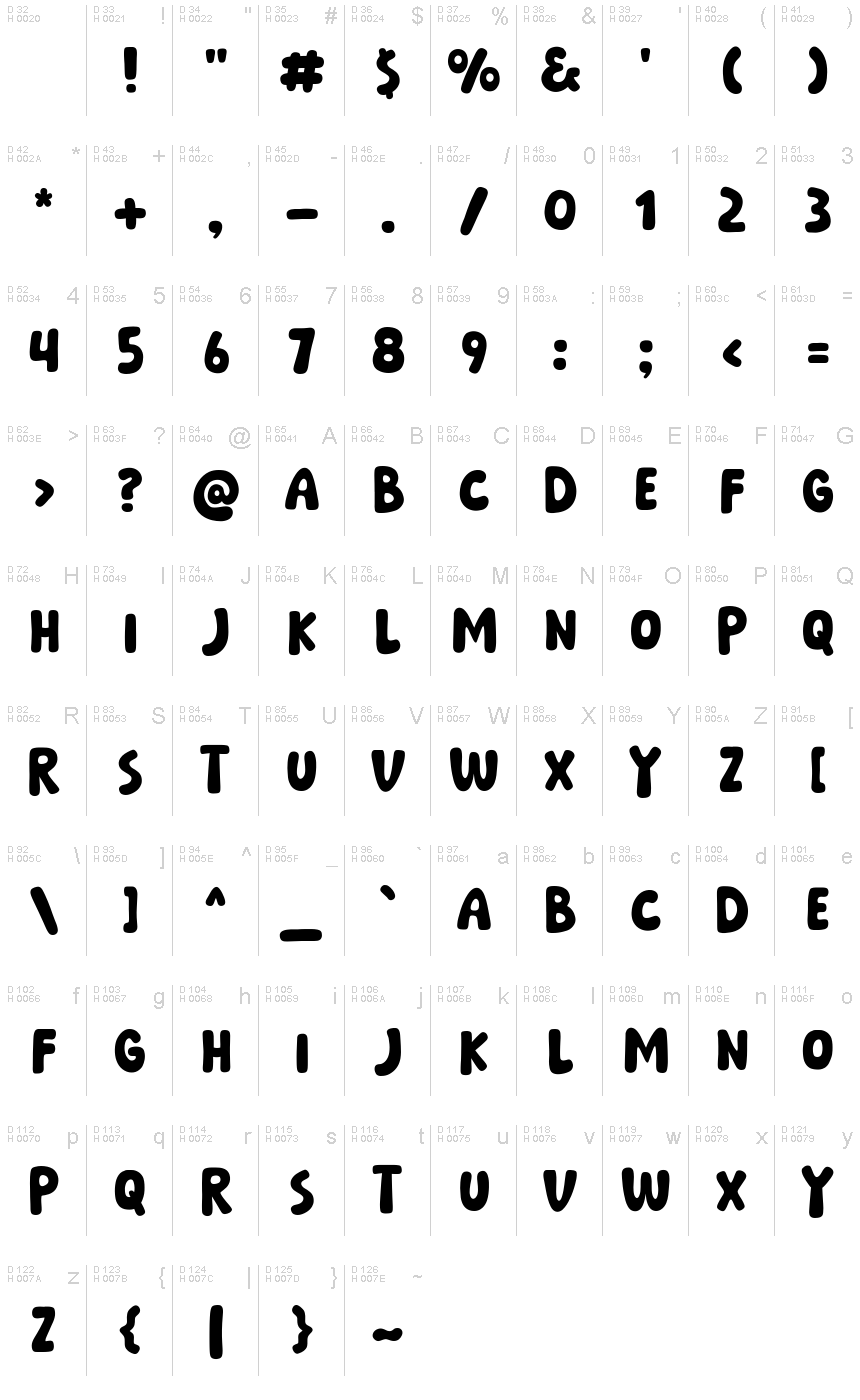
Pesta Rakyat
Pesta Rakyat font, crafted by designer Khurasan, is a bold, display typeface bursting with cartoonish charm. Its playful and exaggerated forms make it ideal for eye-catching designs that demand attention. This free font invites vibrant creativity and adds an approachable vibe to any project.
Perfect for posters, children's books, or event flyers, Pesta Rakyat leverages its unique character to infuse whimsy and fun into visual storytelling. Download this dynamic typeface to explore a world of artistic possibilities where bold style meets engaging communication.